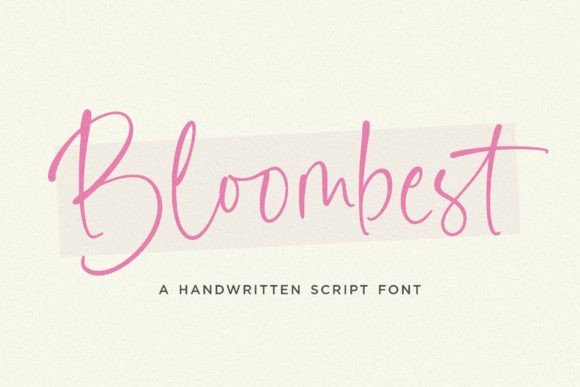
Bloombest Font: Elevate Your Designs with a Personal Touch
Are you tired of using the same old fonts in your design projects? Look no further than Bloombest Font, a beautiful handwritten script that’s perfect for adding a personal touch to your creations. With its natural, organic feel and unique character, Bloombest is sure to make your designs stand out from the crowd.
What is Bloombest Font?
Bloombest Font is a carefully crafted handwritten script that’s designed to bring a touch of personality to your design projects. Whether you’re working on a logo, branding materials, invitations, or any other type of design, Bloombest is the perfect choice. Its modern, handwritten style gives it a unique character that’s sure to make an impact.
Key Features of Bloombest Font
- Natural, Organic Feel: Bloombest Font has a natural, organic feel that’s perfect for designs that require a personal touch.
- Unique Character: With its modern, handwritten style, Bloombest has a unique character that’s sure to make your designs stand out.
- Versatility: Bloombest is incredibly versatile and can be used for a range of design projects, including logos, branding, invitations, and more.
- Crafted with Care: Bloombest Font is crafted with care and attention to detail, ensuring that it’s of the highest quality.
Why Choose Bloombest Font?
So why choose Bloombest Font for your design projects? Here are just a few reasons:
- Add a Personal Touch: Bloombest Font is perfect for adding a personal touch to your designs. Its natural, organic feel and unique character make it ideal for designs that require a human touch.
- Stand Out from the Crowd: With its modern, handwritten style, Bloombest Font is sure to make your designs stand out from the crowd.
- High-Quality: Bloombest Font is of the highest quality, ensuring that your designs look professional and polished.
How to Use Bloombest Font
Using Bloombest Font in your design projects is easy. Here are a few tips:
- Pair it with Other Fonts: Bloombest Font pairs well with other fonts, making it easy to create a unique and visually appealing design.
- Use it for Headings: Bloombest Font is perfect for headings and titles, adding a touch of personality to your designs.
- Experiment with Colors: Bloombest Font looks great in a range of colors, so don’t be afraid to experiment and find the perfect color for your design.
Design Project Ideas Using Bloombest Font
Bloombest Font is incredibly versatile and can be used for a range of design projects. Here are a few ideas to get you started:
- Logos: Use Bloombest Font to create a unique and memorable logo for your business or brand.
- Branding: Bloombest Font is perfect for branding materials, such as business cards, letterheads, and more.
- Invitations: Add a personal touch to your invitations with Bloombest Font.
- Social Media Graphics: Use Bloombest Font to create eye-catching social media graphics that stand out from the crowd.
In conclusion, Bloombest Font is a beautiful handwritten script that’s perfect for adding a personal touch to your design projects. With its natural, organic feel and unique character, Bloombest is sure to make your designs stand out from the crowd. Whether you’re working on a logo, branding materials, invitations, or any other type of design, Bloombest Font is the perfect choice.